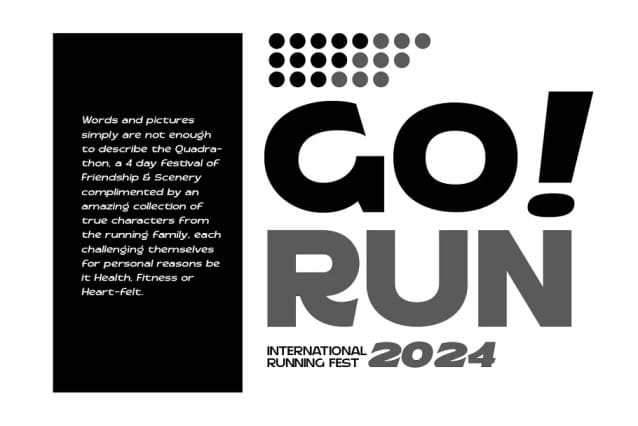
Ransel Font
Ransel Font – Sans Serif Family is a really attractive font family that’s perfect for invitations such as greeting cards, branding materials, business cards, quotes, posters, and more!
RANSEL – The Sans Serif family is impressive in display size and beautiful text size for your designs, with 6 families making this font very easy to use.
Ransel Family font consists of Uppercase, Lowercase, Ligatures, Numeral and International Glyphs.